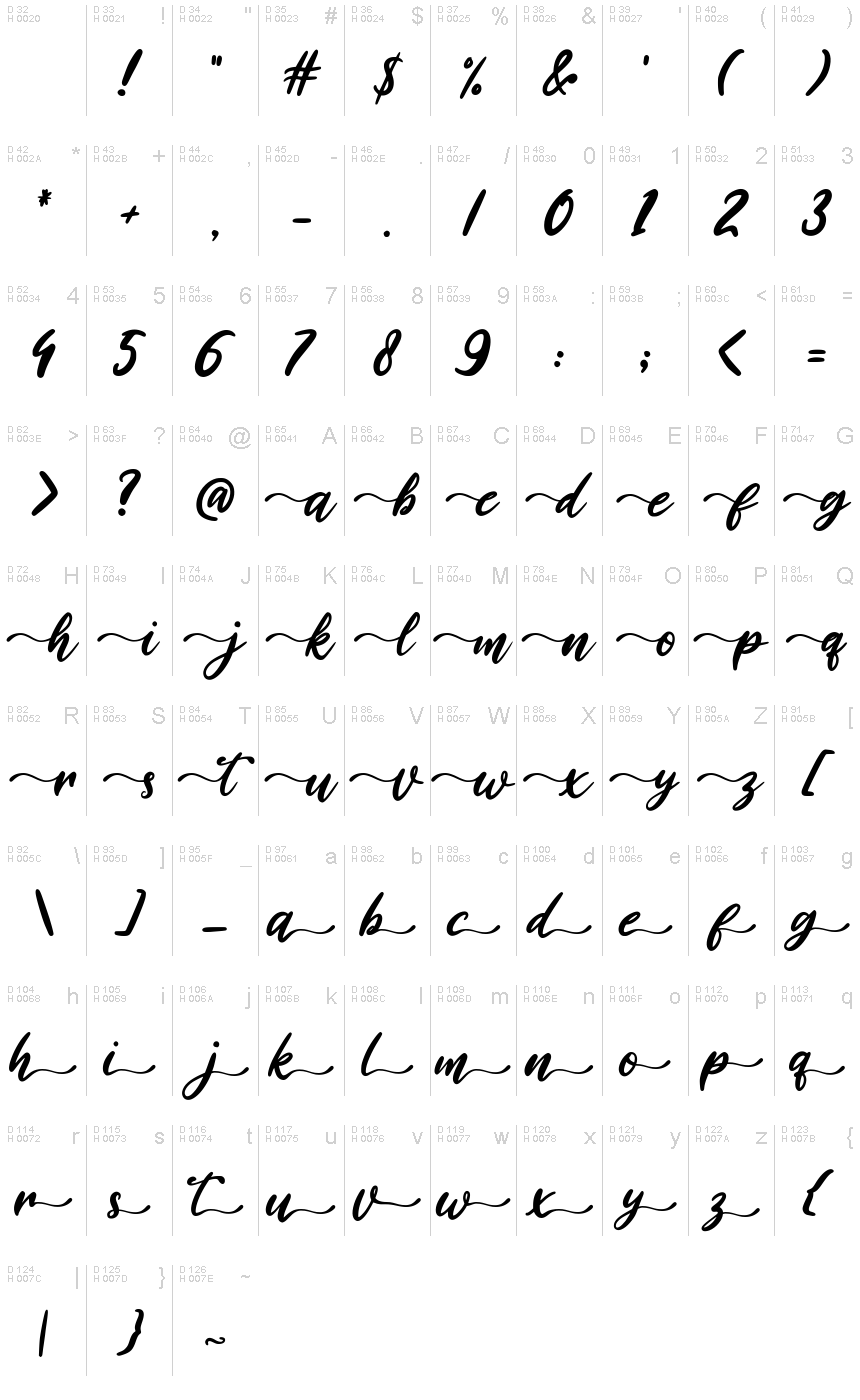
Ali Ana Tail
Ali Ana Tail exudes a personal touch with its handwritten style, capturing the charm and fluidity of natural penmanship. Crafted by Ikrar Bey Khubaib, this font from the Ali Ana family brings an organic, bespoke feel to any project. Its elegant curves and playful movement evoke a sense of creativity and warmth.
Perfect for invitations, branding, and editorial design where a touch of individuality is desired, Ali Ana Tail makes each word appear as though it were thoughtfully written by hand. This font marries the spontaneity of handwritten script with the precision of digital design, ensuring your message stands out with both personality and readability.